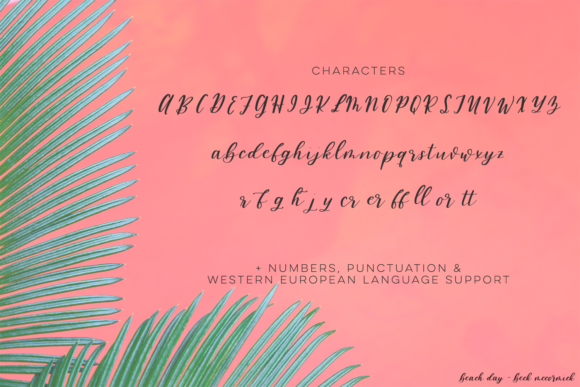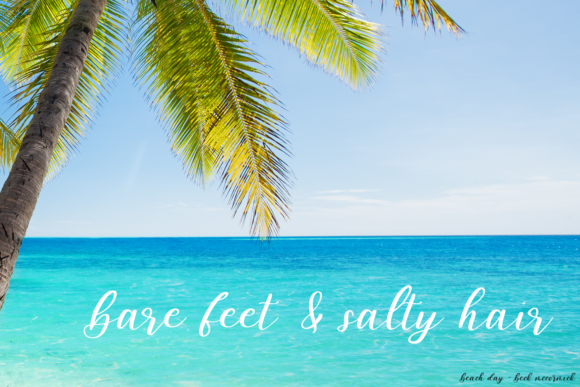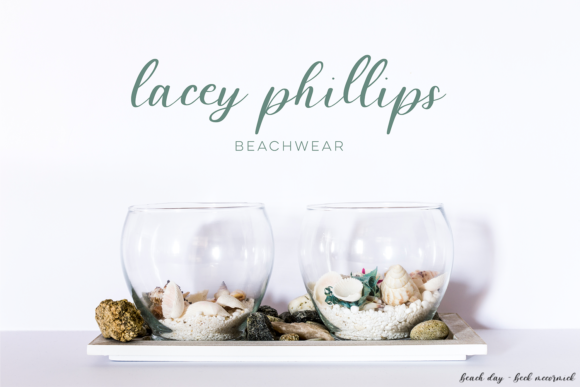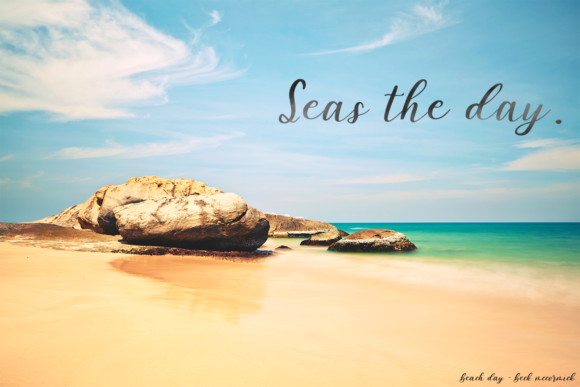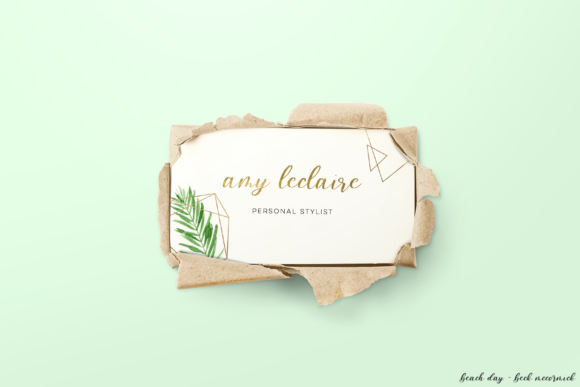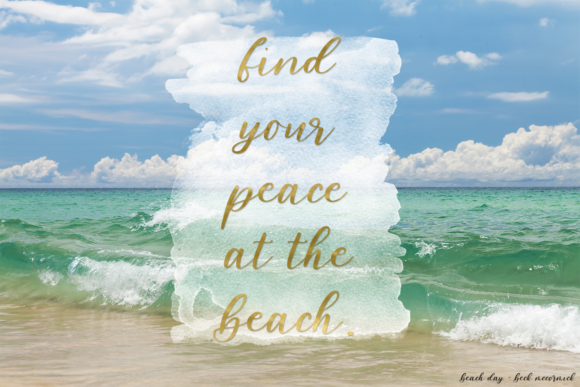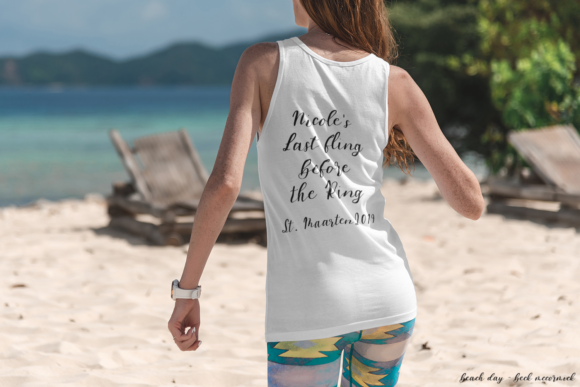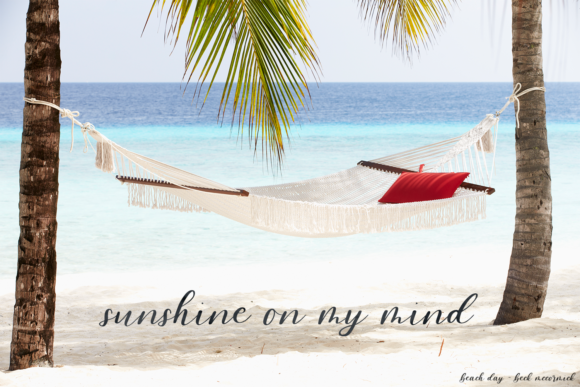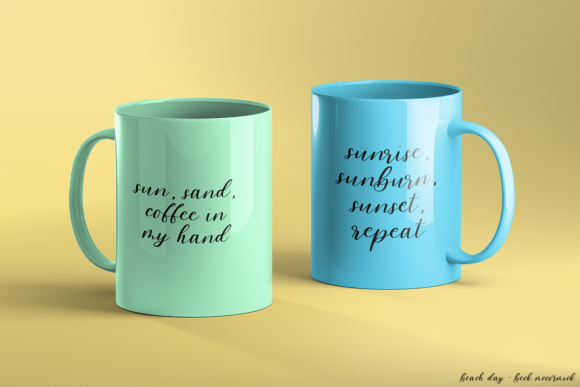
HomeScript FontsBeach Day Script Font Script Fonts Beach Day Script Font FacebookXPinterestWhatsApp Beach Day Script Font Poster 2 Beach Day Script Font Poster 3 Beach Day Script Font Poster 4 Beach Day Script Font Poster 5 Beach Day Script Font Poster 6 Beach Day Script Font Poster 7 Beach Day Script Font Poster 8 Beach Day Script Font Poster 9 Beach Day Script Font Poster 10 About Beach Day Script Font Beach Day is a stunning script with a light and summery feel. Get ready for the summer with this unique font! DOWNLOAD NOW People also explored Kebuli Square Beat Darita Font Succulent Font Shapia Font Viona Font Dairy Farm Font Mella Sweet Font Qiwoyo Font 310 0 TagsBeach Day Script Font Previous articleMaldins FontNext articleGattcam Font LEAVE A REPLY Cancel reply Comment: Please enter your comment! Name:* Please enter your name here Email:* You have entered an incorrect email address! Please enter your email address here Website: Save my name, email, and website in this browser for the next time I comment. Personal Use Free Haris Wood Personal Use Free Read more about this font Unsteady Overseer Personal Use Free Read more about this font Hatchill Personal Use Free Read more about this font BD Algebra Personal Use Free Read more about this font BLOG Transform Your Website: Elevate Your Typography with 7 Best Web Font Generators Are you ready to transform your website's typography from ordinary to extraordinary? Great! Today, we're diving into the world of web font generators, which... How to Install and Use Fonts on Windows, macOS, and Web Projects Modern Sans-Serif Fonts That Brands Love in 2025 Free Fonts Risk: Why Free Fonts Can Be Dangerous for Designers